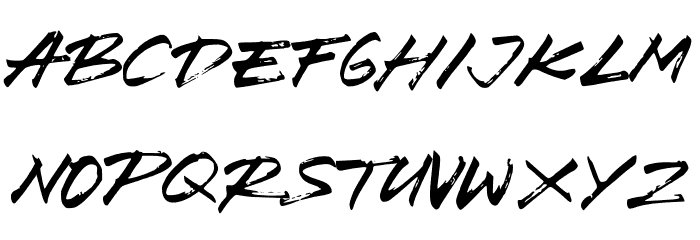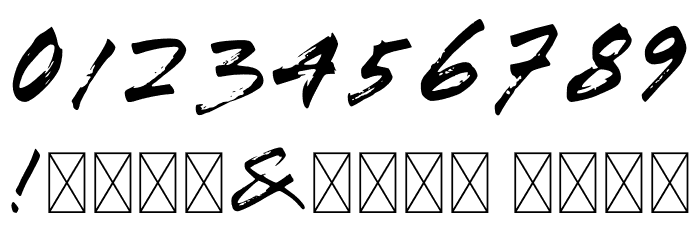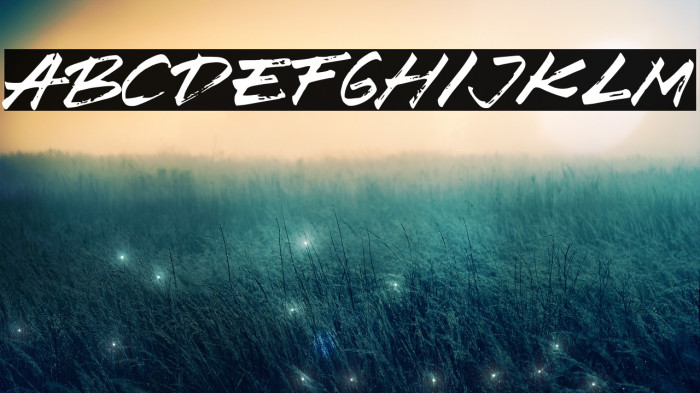
Brush Wedco Font
This font features a dynamic and expressive brush script style, characterized by its bold and energetic strokes. The letters exhibit a hand-painted appearance, with varying thickness and a slightly rough texture that adds a sense of movement and spontaneity. The uppercase and lowercase letters maintain a consistent flow, enhancing the overall fluidity of the design. The numerals and special characters follow the same aesthetic, ensuring a cohesive look across all elements. This font's unique style makes it stand out, offering a creative and artistic flair suitable for various design projects.
A bold, brush script font with dynamic and expressive strokes.
- Proposed Projects: Ideal for branding, posters, invitations, and artistic projects requiring a bold, creative touch.